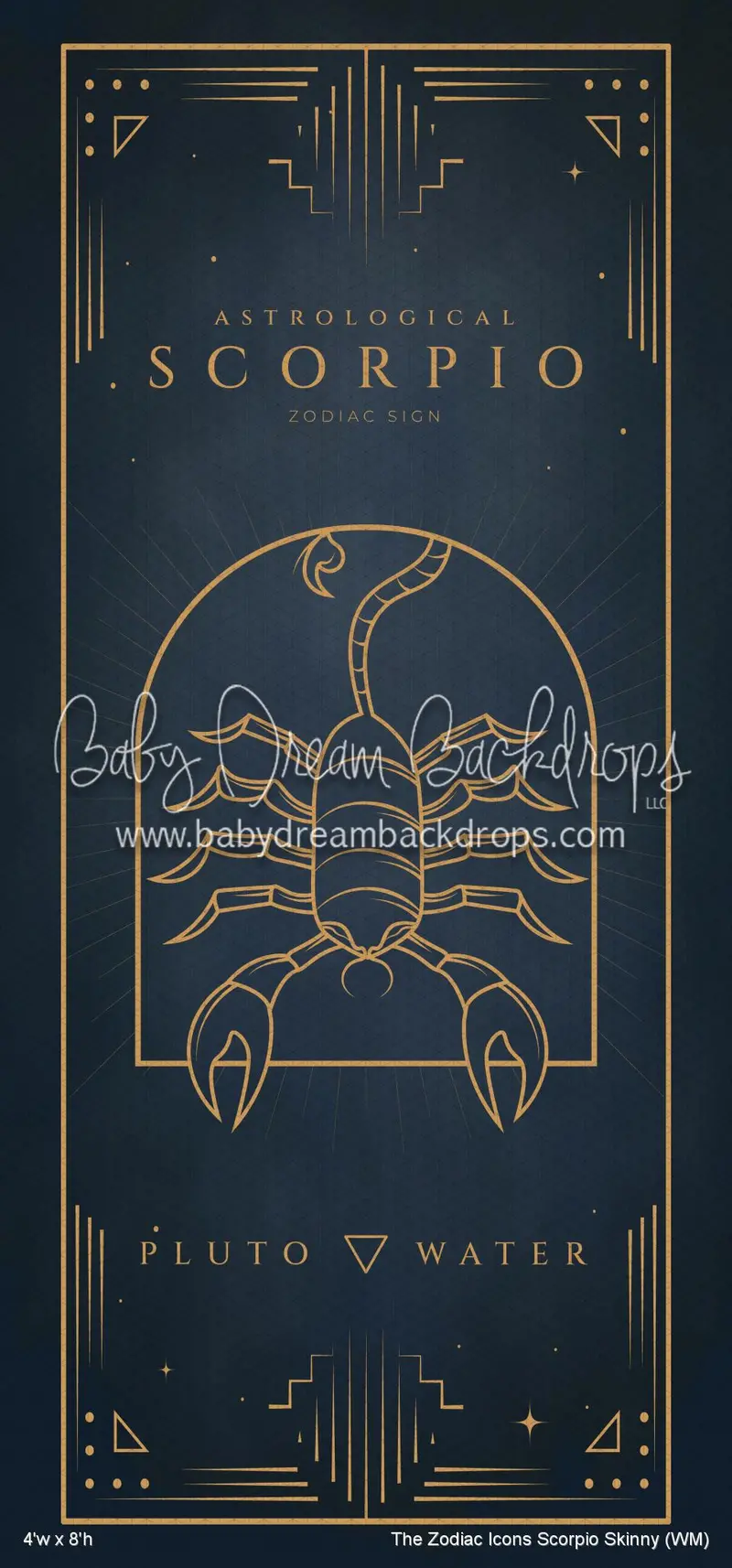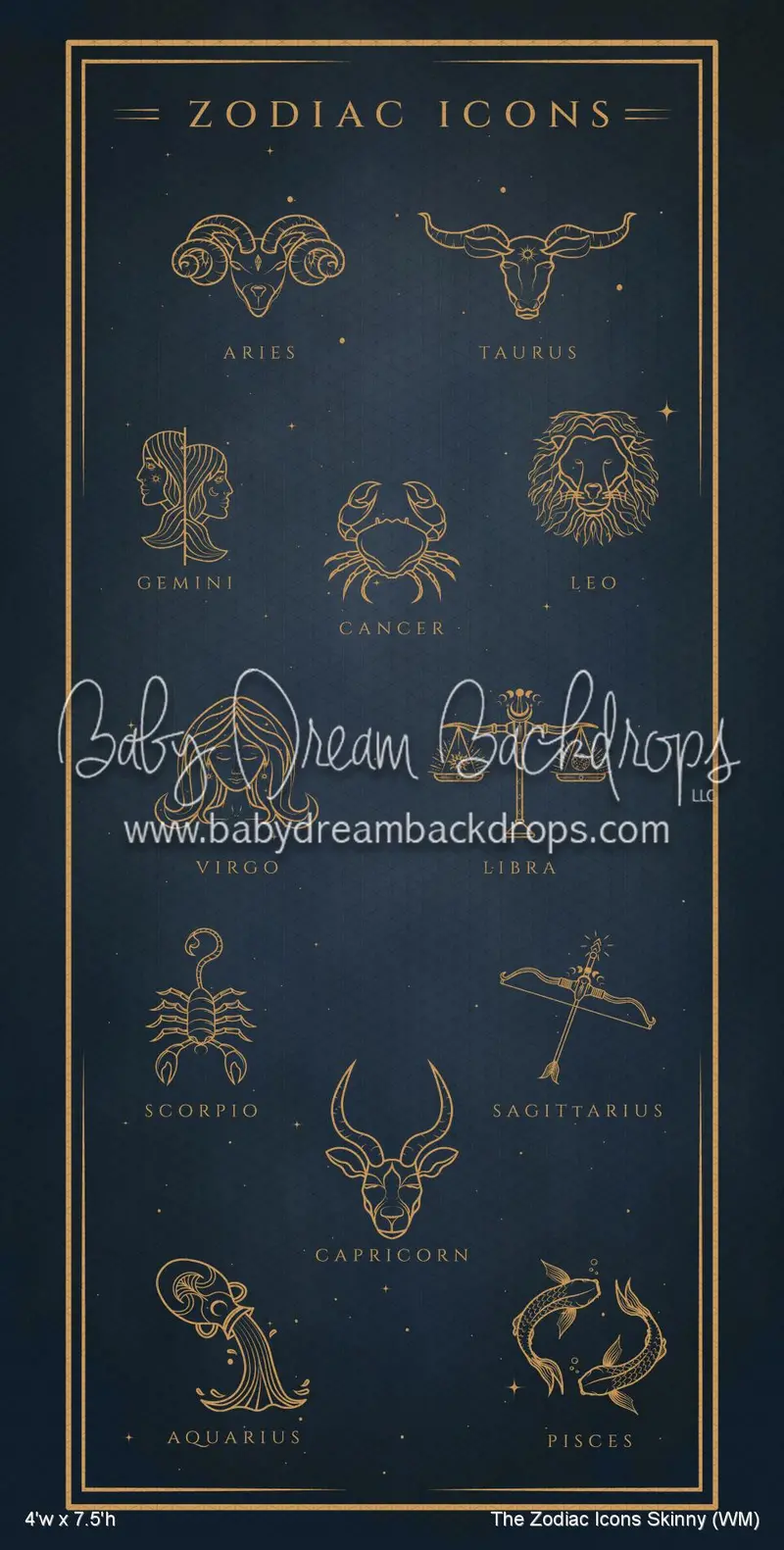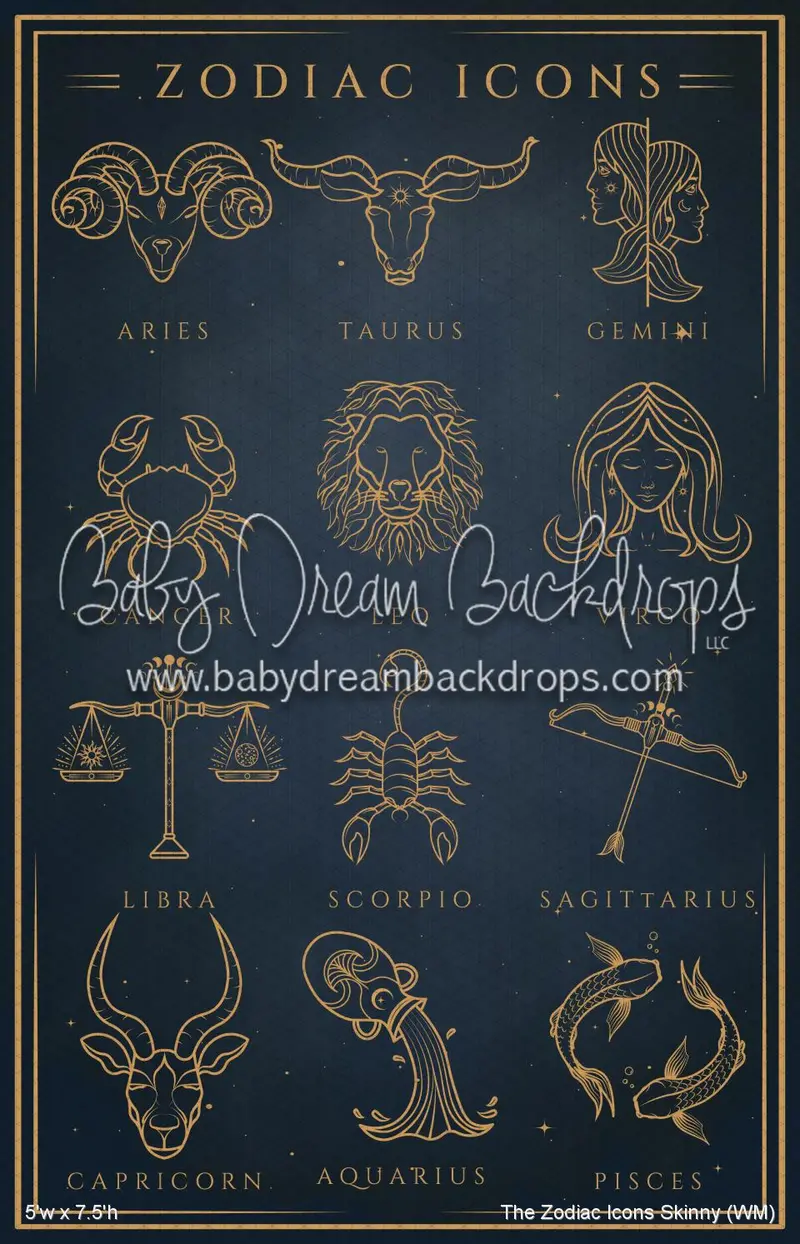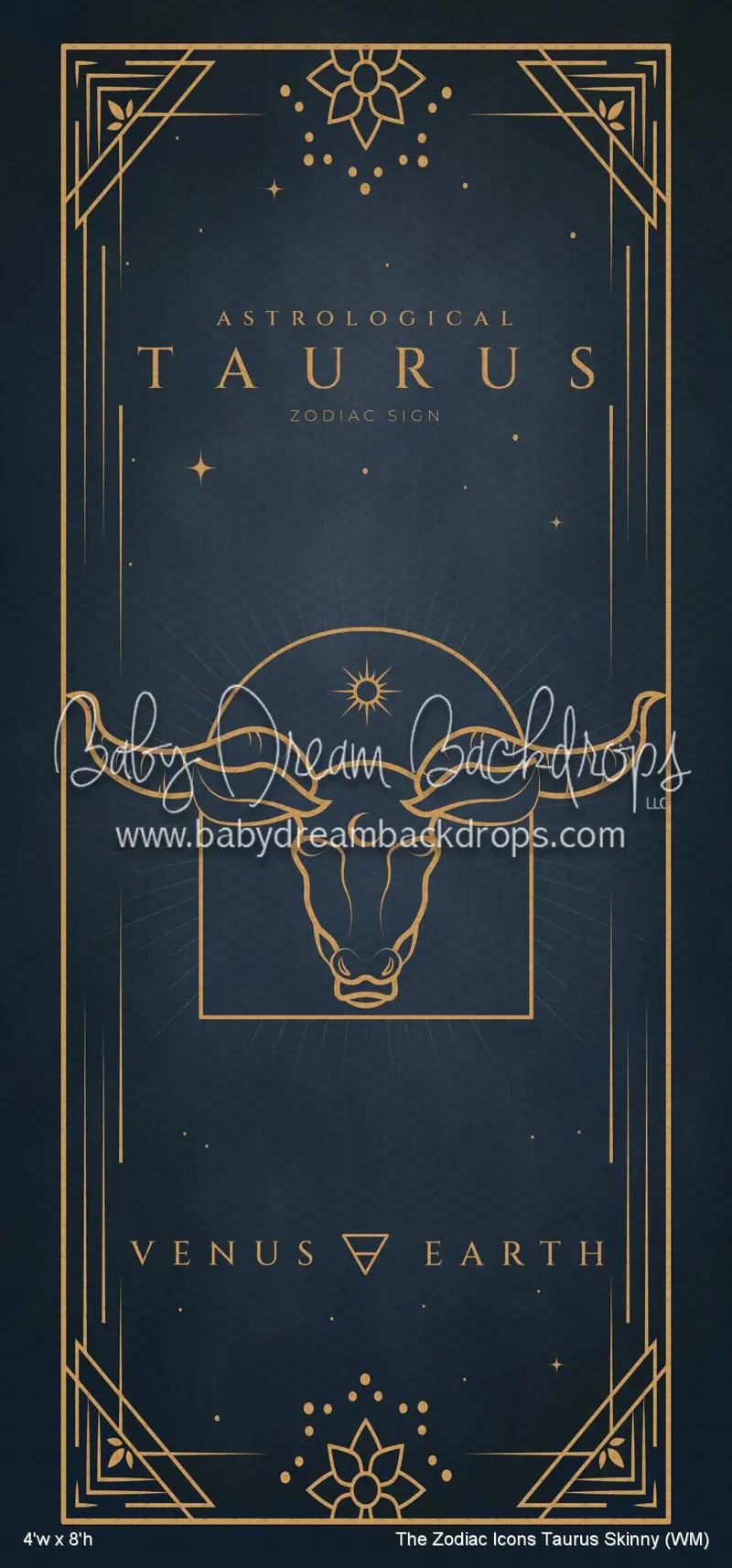
🌟 The Zodiac Icons Collection by Whitney Minten 🌟
Start with The Zodiac Nocturne—Standard, Skinny, Sweep or X Drop—as your celestial canvas, then layer in a bold Zodiac Icon Skinny for your client’s sign. These rich, symbolic illustrations bring cosmic energy and clarity to the scene. Complete the look with the coordinating The Zodiac Icons Skinny for a beautifully balanced, star-powered setup.